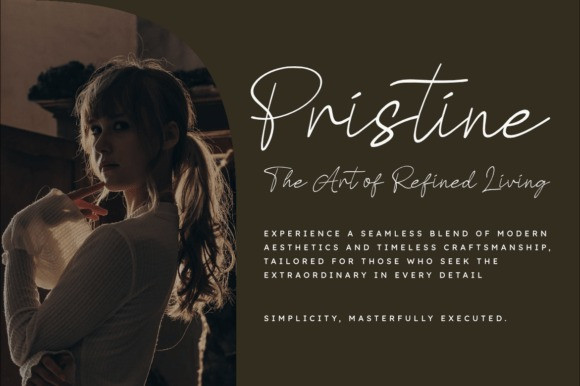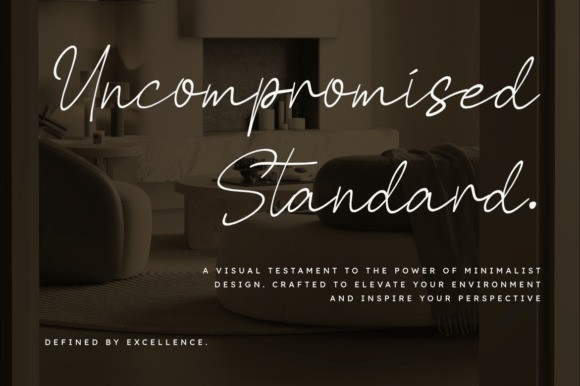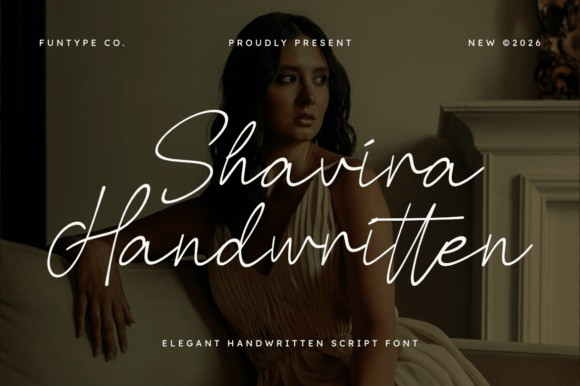
Shavira Handwritten Font
Shavira Handwritten Font is a beautiful and elegant handwritten script font with a natural, flowing style. Perfect for signature-style logos, wedding invitations, branding, and photography watermarks, this font adds a personal and sophisticated touch to any design.